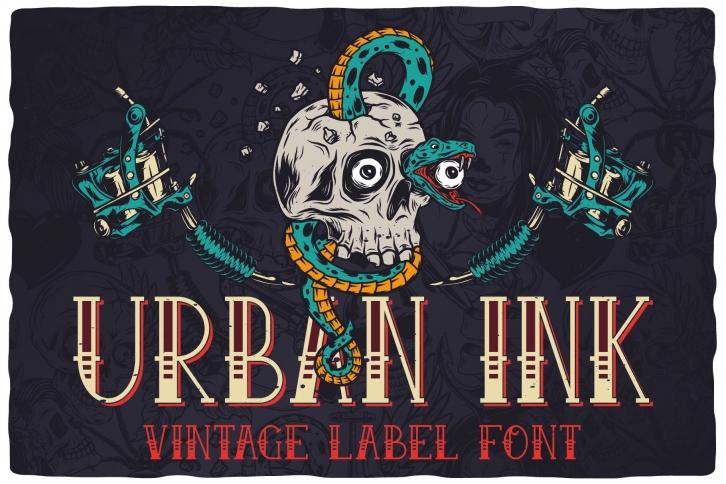
Introducing a vintage look label font named Urban Ink. All available characters you can see at the screenshot. This font have 6 styles - Regular, Full, Shadow, Texture, Shadow FX and Texture FX. This tattoo style font will good viewed on any retro design like poster, t-shirt, label, logo etc.
- A lot of additional characters and multilingual support